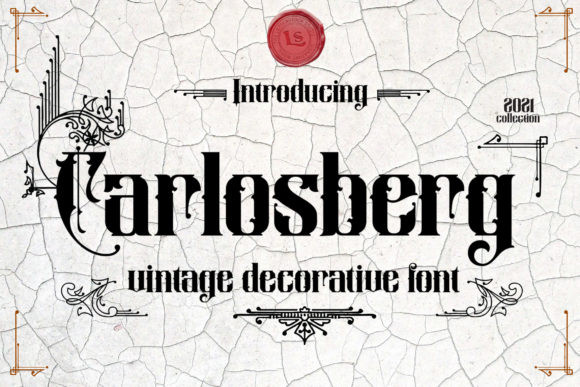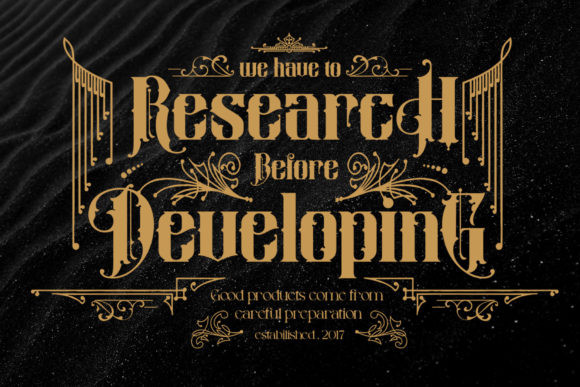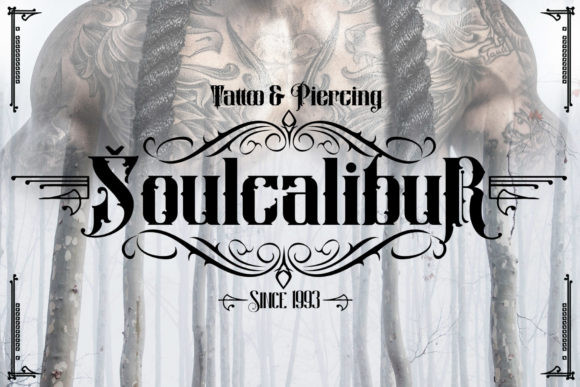
Carlosberg Font
Carlosberg is a detailed, distinct and assertive display font. It will add a luxury spark to any design project that you wish to create!